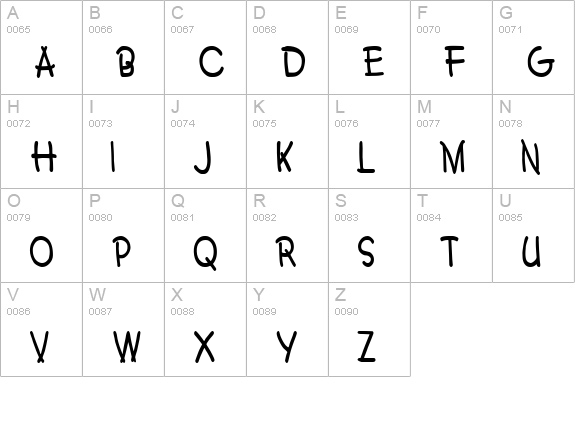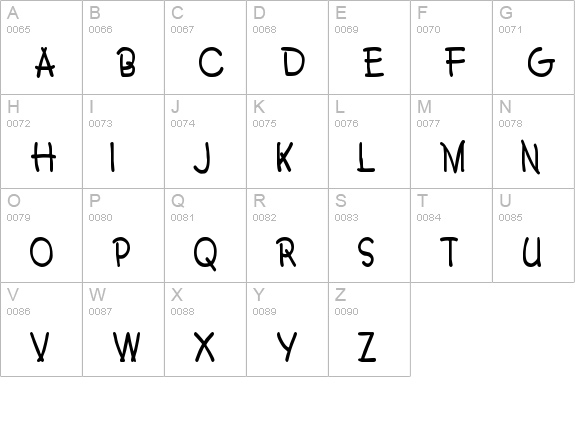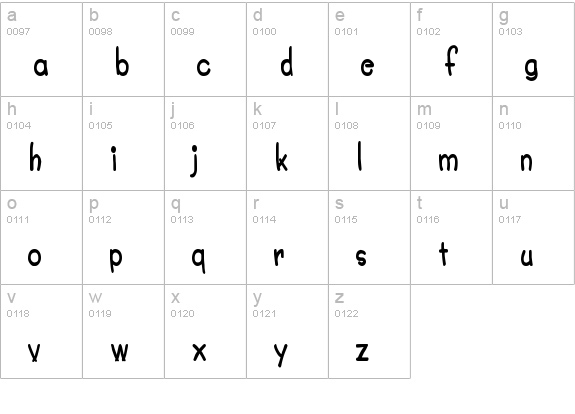
CrayonCondensed Bold Font Details
CrayonCondensed Bold is a strong, high-contrast variant in the CrayonCondensed typeface family \xE2\x80\x94 well suited to headlines, attention-grabbing titles, and strong calls-to-action.
The CrayonCondensed Bold font is a playful and eye-catching typeface that adds a touch of whimsy to any design project. With its bold and condensed style, this font is perfect for creating attention-grabbing headlines, posters, and logos. The unique hand-drawn look of the letters gives a fun and creative vibe to your designs. And the best part? The CrayonCondensed Bold font is completely free to download at FontsMarket.com! Whether you're a designer looking to add a fun twist to your projects or simply want to inject some personality into your branding, this font is a fantastic choice. Don't miss out on the opportunity to enhance your designs with this charming and versatile typeface. Download it now and let your creativity shine!